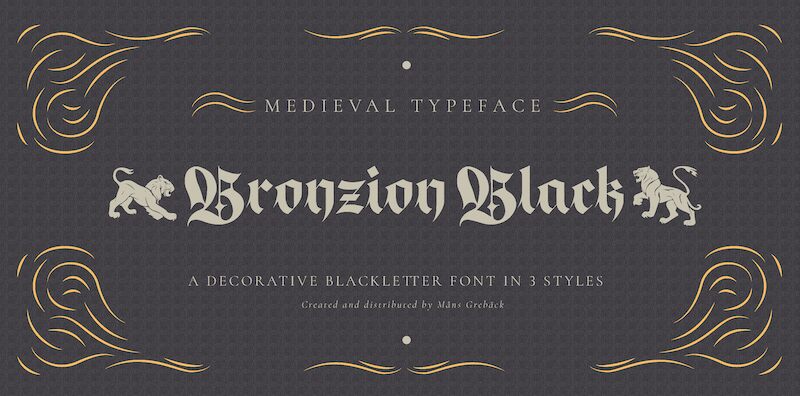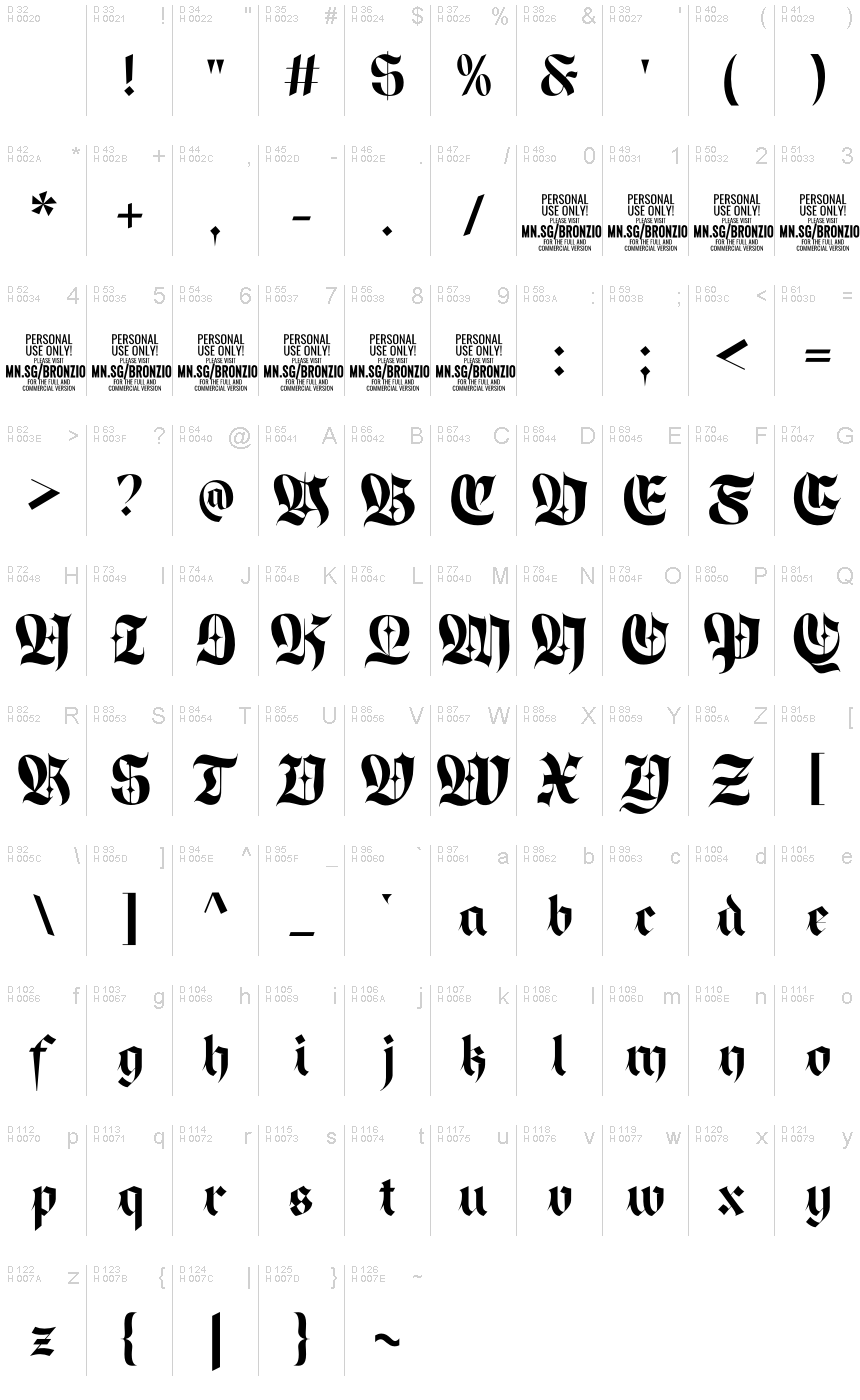
Bronzion Black is a captivating Gothic typeface, meticulously crafted by designer Mans Greback. This bold, medieval-inspired font exudes a raw, authentic charm through its large, hand-painted capital letters. The rugged, robust strokes and sharp, angular forms evoke a sense of timeless elegance and historic grandeur, making Bronzion Black an exceptional choice for projects seeking a powerful, visually striking aesthetic.
Bronzion Black's striking visual impact lends itself well to a variety of design applications, from eye-catching editorial layouts and impactful branding to dramatic titling and signage. Its bold, distinctive character makes it an ideal selection for projects requiring a bold, attention-grabbing typographic treatment, such as book covers, album art, and event posters. Whether used as a standalone display font or paired with complementary typefaces, Bronzion Black offers a truly unique and captivating typographic experience.